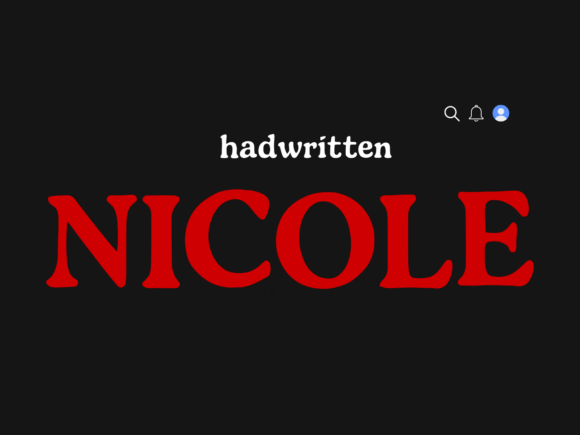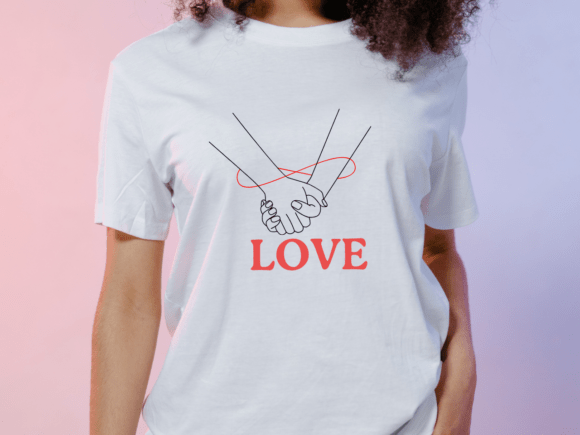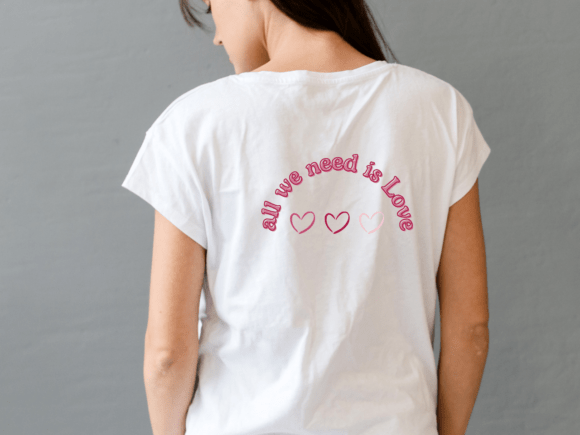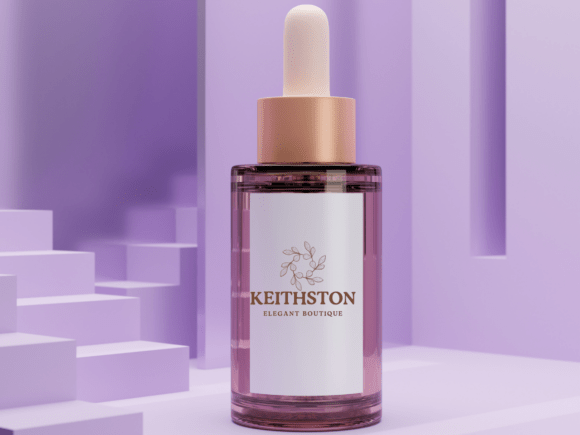
Nicole Font
About the Nicole Font
Step up your design game with Nicole Font, a font that exudes confidence and style. Nicole  is a bold and assertive serif font. No matter the topic, this font will be an incredible asset to your fonts’ library, as it has the potential to elevate any creation.
Nicole’s strong serifs and bold strokes make it ideal for headlines, logos, and short impactful statements in branding materials and posters. It commands attention and projects authority, working particularly well for luxury goods, corporate identities needing a powerful presence, or projects with a classic yet assertive feel. Avoid using Nicole for body text or extended paragraphs; its weight and assertive nature would hinder readability in longer passages.
Pairing Nicole effectively requires considering its boldness. A clean, geometric sans-serif like Helvetica Neue would create a modern contrast, while a more traditional serif like Garamond could offer a sophisticated complement. For a softer touch, consider pairing it with a delicate script font for secondary text elements. A playful, rounded sans-serif would create an unexpected yet effective contrast for certain projects.
Nicole’s overall personality is assertive and confident, conveying a sense of strength and sophistication. It’s best suited for brands and projects that wish to project authority and timeless elegance.
Nicole Font Usage Examples
Nicole Font Example